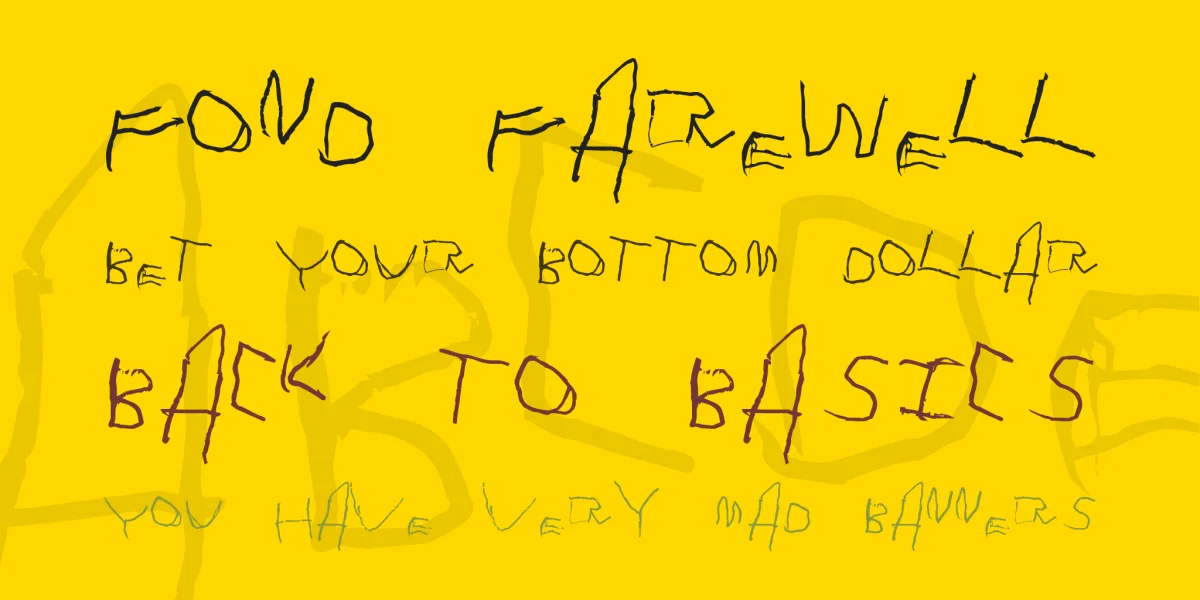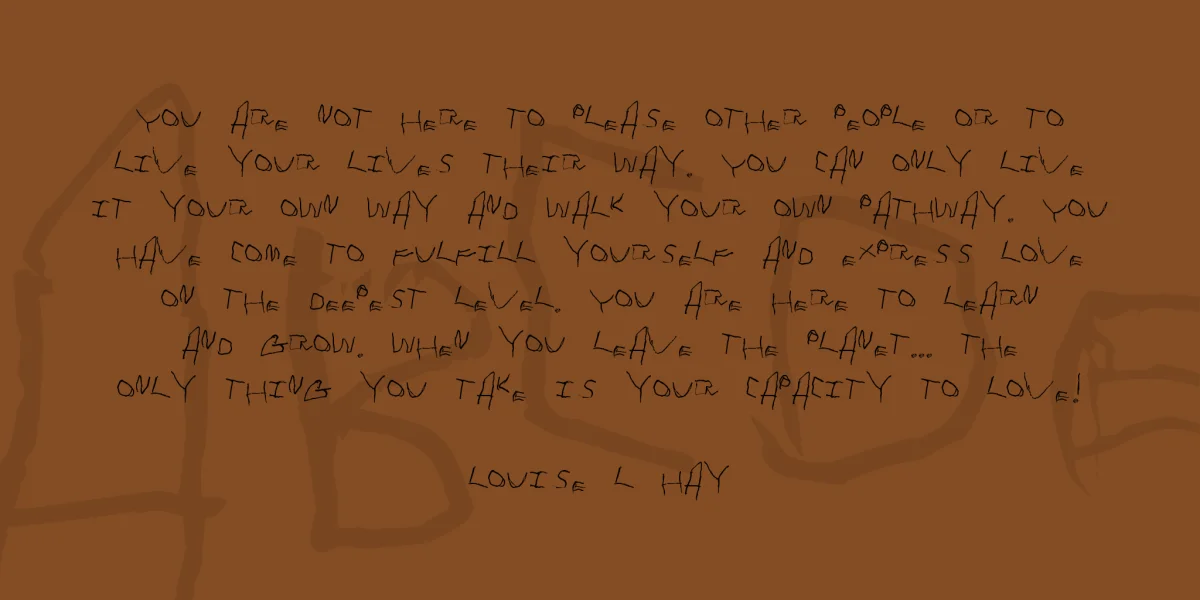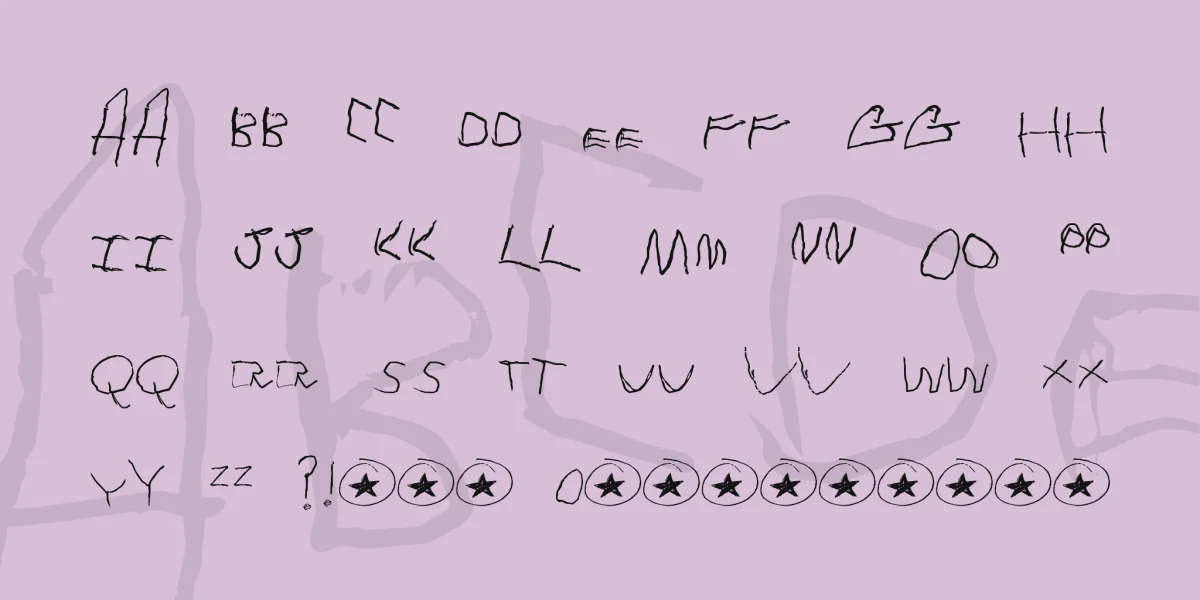
(Letters (Mostly Caps=Lower), bare punctuation essentials) -- Sorry about this one... when I found the worn piece of paper documenting this historic piece of my childhood I just had to make it into a font. All of the letters are authentic species from my first alphabet ever! Some punctuation has been fudged to make the font usable, but all the letters are real from when I was three and a half years old...